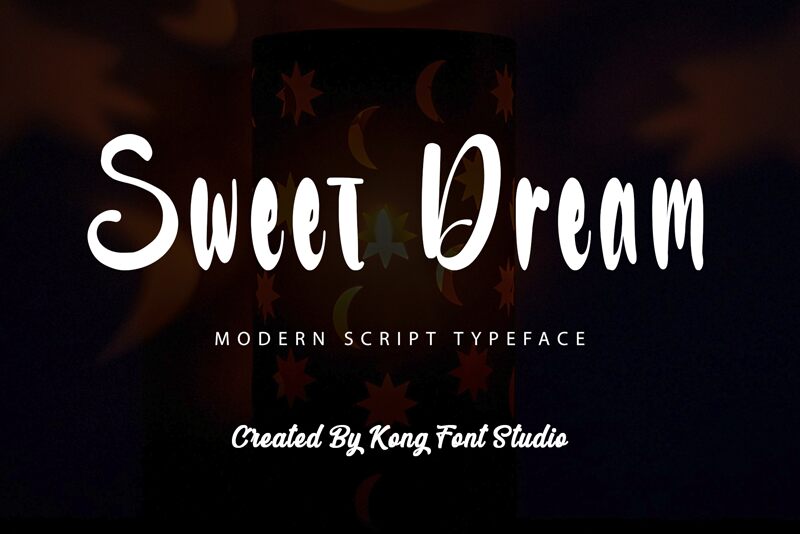
Sweet Dream
Sweet Dream is a captivating semi-bold font designed by Kong Font. With its smooth brush style and condensed width, this versatile typeface is perfect for a wide range of creative projects. From elegant wedding invitations to trendy branding materials, Sweet Dream adds a touch of sophistication and playfulness. Its unique design makes it suitable for fashion magazines, beauty blogs, or even stylish product packaging. Let your imagination run wild with Sweet Dream and create stunning designs that leave a lasting impression.